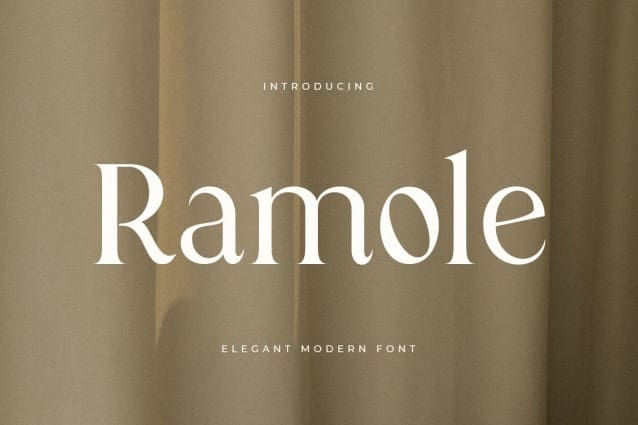
Ramole Font
Ramole Font is a modern and elegant Serif font. A new Serif font that we created specifically for logo and branding needs, with a unique shape and ligatures that will add value to your brand. It’s so nice to call on a designer or product owner who needs solutions to make their design more beautiful and modern. And especially for Ramole font, we have prepared all alternative characters to help you create unlimited variations for your creative needs, especially for logotype